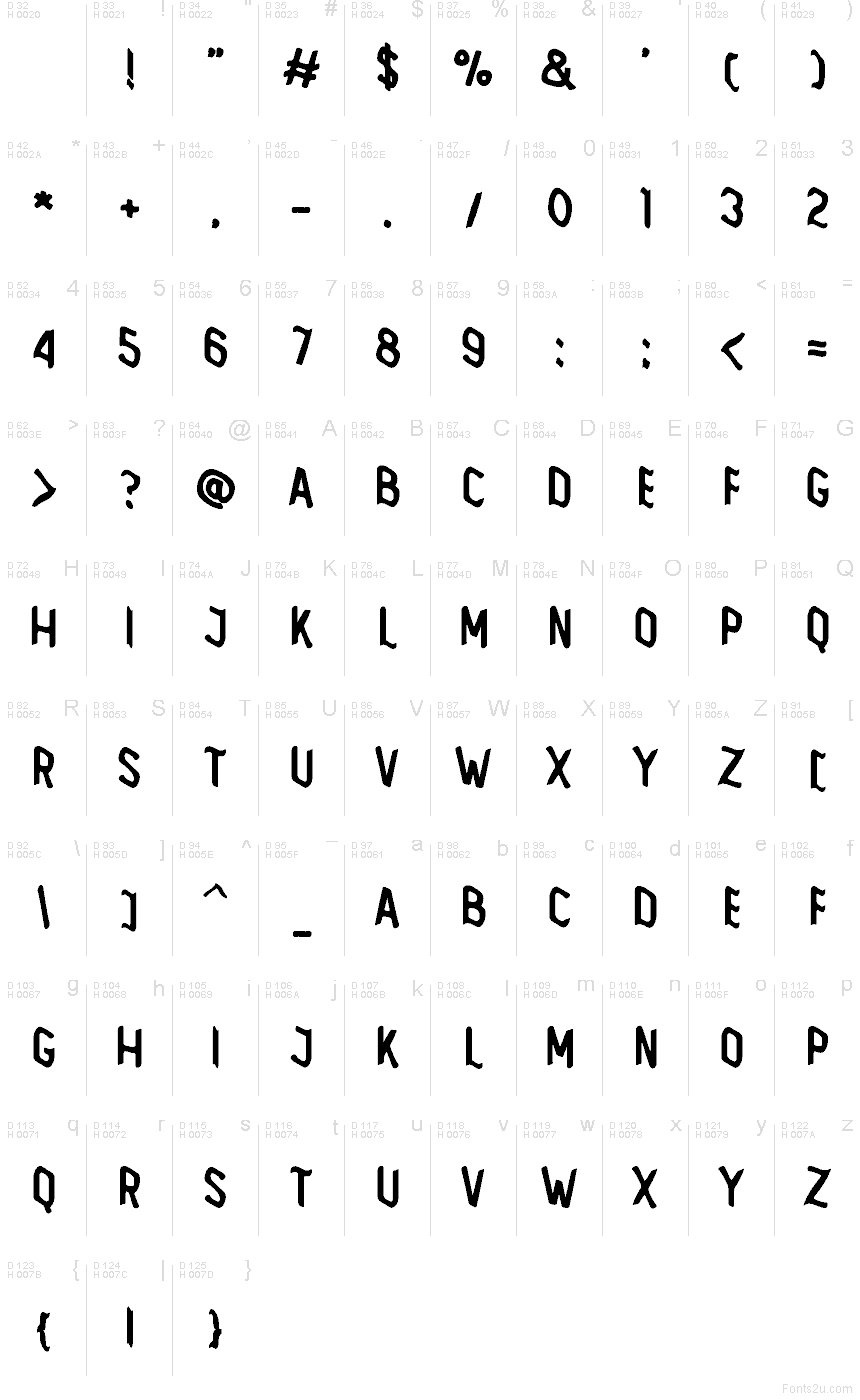
Dalgona Rolgado by Vultype Co. is a free distorted display font with a rubbery, retro sign-paint feel. The caps look squeezed and bent by hand, with heavy rounded strokes, narrow openings, and little kicks and droops that keep the letters moving instead of sitting still.
It fits poster titles, cafe branding, snack packaging, music flyers, and bold social headers where a free font needs a lived-in, slightly warped mood rather than a neat geometric one. Use it for short headlines, cover lines, or monograms when you want the letters themselves to do the talking, because the wobble and uneven footing create character fast.